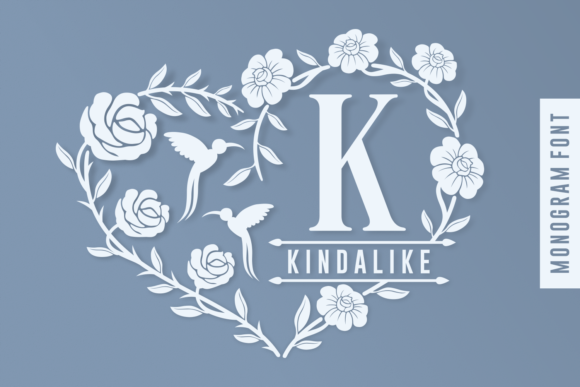
Introducing Kindalike Font, the epitome of elegance and sophistication in the world of decorative fonts. Crafted with utmost care and attention to detail by the talented designer Dito from 7NTypes, this font is bound to captivate your senses and elevate your design projects to new heights.
Are you searching for the perfect font to adorn your place cards? Look no further! Kindalike Font is specifically tailored for this purpose, making it the ultimate choice for anyone seeking the best fonts for place cards. Its delicate and highly detailed characters gracefully dance along the baseline, creating a mesmerizing visual feast for the eyes.
Embrace the allure of luxury and elegance with Kindalike Font. Each letter is meticulously crafted, exuding an air of sophistication that is sure to impress. Whether you're designing wedding invitations, event posters, or personalized stationery, this font will infuse your creations with a touch of opulence.
Imagine the joy and excitement your guests will experience when they lay eyes upon your beautifully designed place cards. Kindalike Font will leave a lasting impression, making each guest feel valued and cherished. Its intricate details and exquisite curves are a testament to the craftsmanship behind this font, setting it apart from the rest.
With Kindalike Font, your creativity knows no bounds. The wide range of possibilities it offers ensures that you can bring your vision to life with ease. Let your imagination run wild as you explore the endless design options this font presents, from elegant logos to stunning typography.
Not only does Kindalike Font excel in aesthetics, but it also boasts functionality. Its keyword-rich nature makes it highly searchable, ensuring that your target audience can easily discover your designs. This font is not just a pretty face; it is a strategic tool that will attract attention and drive results.
In conclusion, Kindalike Font is the pinnacle of decorative fonts, designed to add a touch of luxury to your projects. Its intricate details, captivating curves, and versatility as the best font for place cards make it a must-have for any designer or creative individual. Unlock the potential of your designs and create a lasting impression with Kindalike Font.